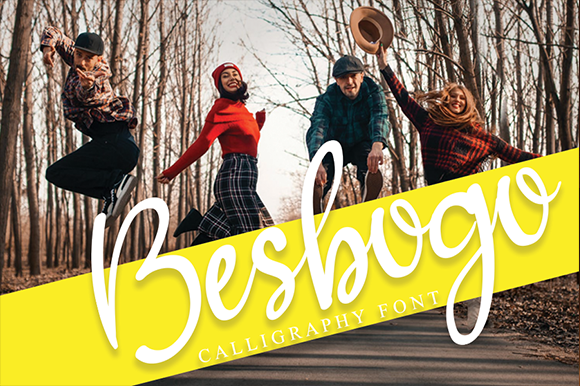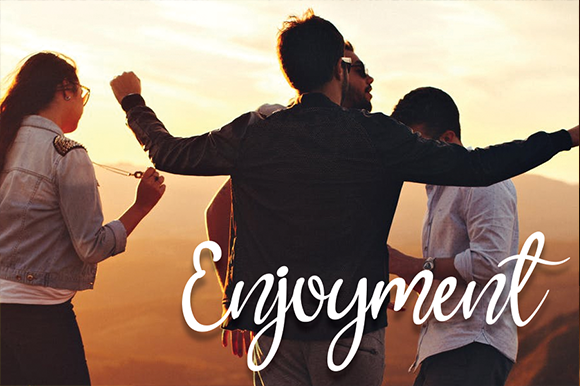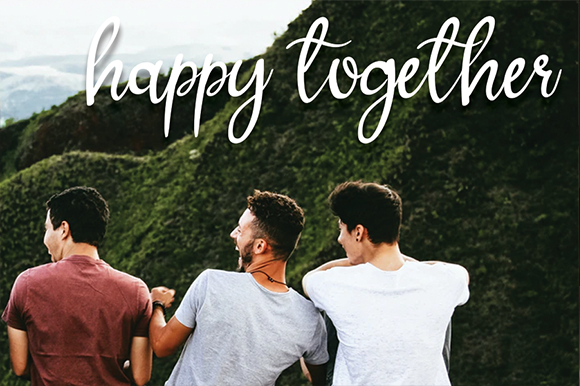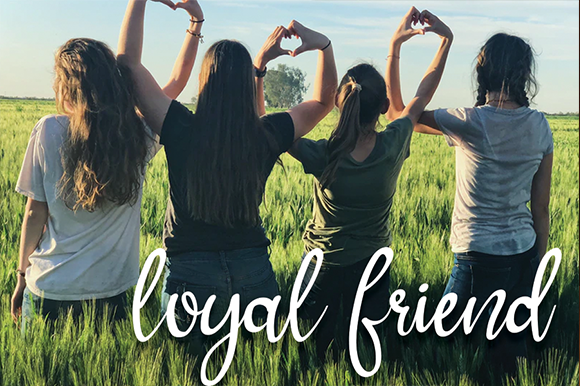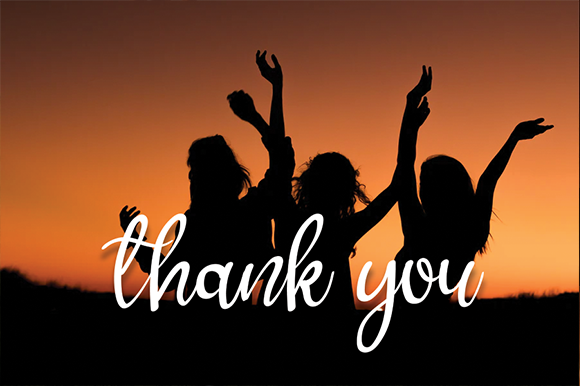
Besbogo Font
About Besbogo Font
Besbogo embodies fun, quirkiness and authenticity. This enchanting handwritten font will turn any creative idea into a true standout.